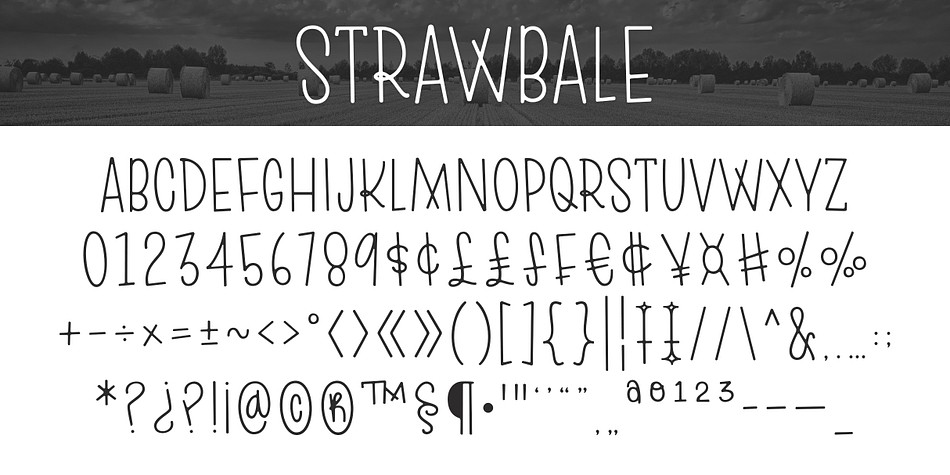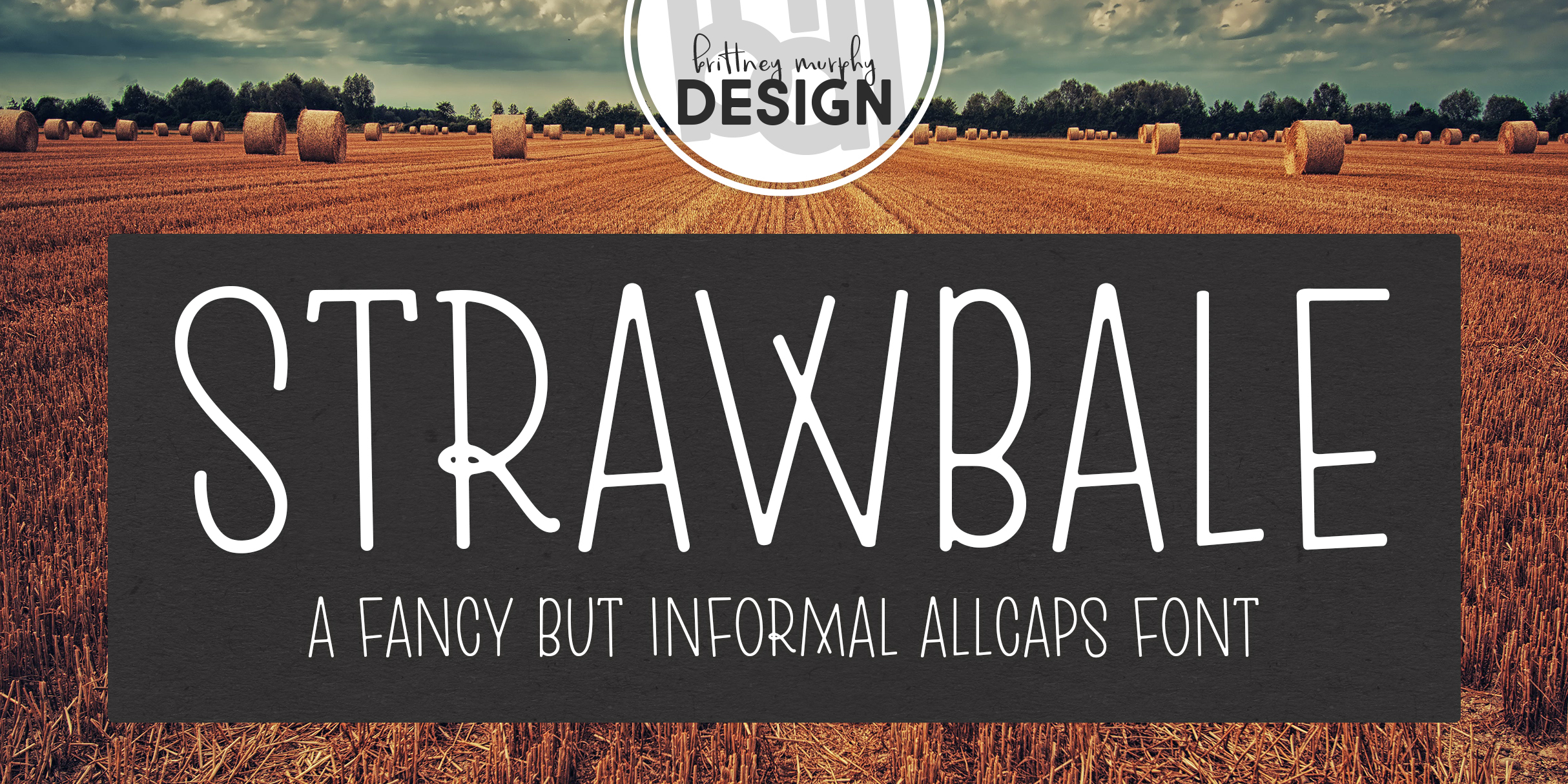
STRAWBALE
Designed by Brittney Murphy, Strawbale is a hand display font family published by Brittney Murphy Design.
The Strawbale font is a fancy hand-drawn allcaps font. It’s got a country feel to it that lends itself to farmhouse decor or holiday designs.